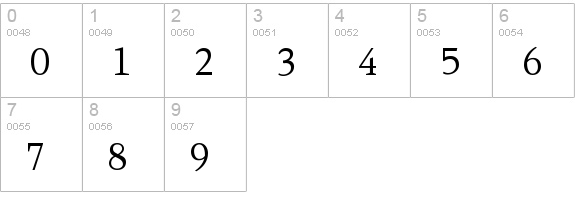
Kandal-Book Font Details
Kandal-Book is a comfortable, highly readable variant in the Kandal typeface family \xE2\x80\x94 well suited to long-form body text, articles, and editorial content.
Introducing Kandal-Book, a stunning font that effortlessly combines elegance and readability. This versatile typeface is perfect for a wide range of design projects, whether it's crafting eye-catching headlines, designing beautiful logos, or creating captivating social media graphics. What sets Kandal-Book apart is not only its timeless appeal but also its accessibility. This font is available for free, allowing designers of all levels to enjoy its beauty without any limitations. Whether you're a professional graphic designer or a hobbyist looking to add a touch of sophistication to your creations, Kandal-Book is the perfect choice. With its clean lines and balanced proportions, Kandal-Book exudes a sense of modernity and refinement. Each character is meticulously crafted, ensuring legibility even at smaller sizes. The subtle curves and delicate serifs add a touch of elegance to every letter, making Kandal-Book a truly captivating font. But don't just take our word for it – experience the beauty of Kandal-Book for yourself. This font is freely available to download at FontsMarket.com, a reputable source for high-quality fonts. Simply visit the website, locate Kandal-Book, and with a few clicks, this exceptional font will be yours to explore and unleash your creativity. Whether you're looking to elevate your branding, enhance your editorial designs, or simply add a touch of sophistication to your personal projects, Kandal-Book is the perfect companion. Its timeless beauty, combined with its free availability, makes it a must-have for any design enthusiast. Download Kandal-Book today and let your creativity soar to new heights.